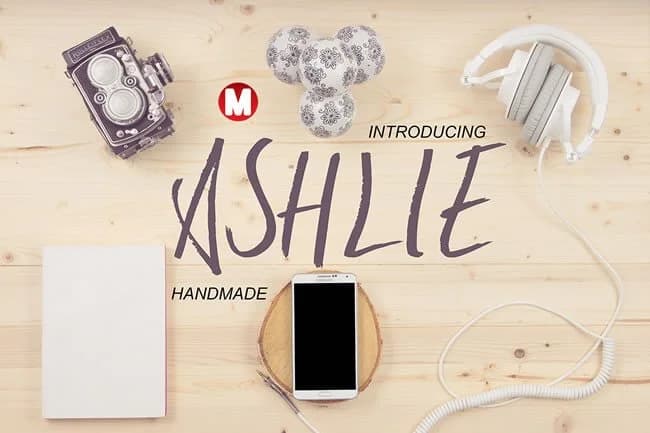
About Ashlie Font
Ashlie Font by Only The Originals is a hand-lettered script typeface that captures the warmth of genuine, personal writing. The flowing letterforms bring an organic touch to any creative project, making it ideal for designers who seek authentic handmade character and a more human connection in their visual work. This typeface balances elegance with accessibility, working equally well for seasoned design professionals and emerging creators.
This script font excels in specialized applications like wedding invitation suites, custom event stationery, and boutique branding projects where handcrafted appeal genuinely matters. From Etsy product labels to personalized gift tags and DIY craft signs, Ashlie adapts beautifully to work that benefits from its graceful, natural rhythm. Social media graphics, packaging design, and printed merchandise also showcase the typeface's refined curves and effortless sophistication. The font works seamlessly across Adobe Illustrator, Photoshop, and Canva, providing the flexibility you need across different design platforms.
The gentle, expressive quality of Ashlie makes it a natural fit for any project emphasizing personality and artisanal craftsmanship over corporate polish. Find Ashlie Font on Creative Fabrica and bring handwritten elegance to your creative collection.
Ashlie Font is a script font that shines as a display or heading face. Pair it with a clean sans-serif or serif font for body text β the contrast creates a clear hierarchy while the two styles stay balanced and easy to read.